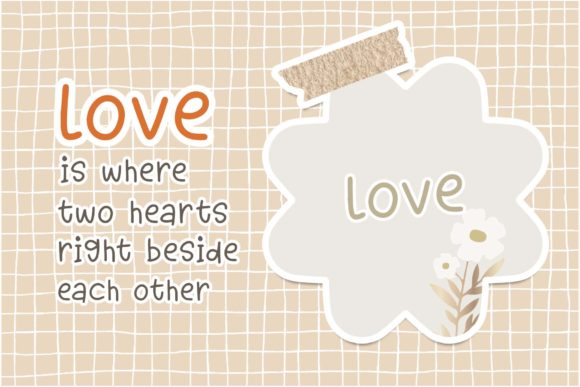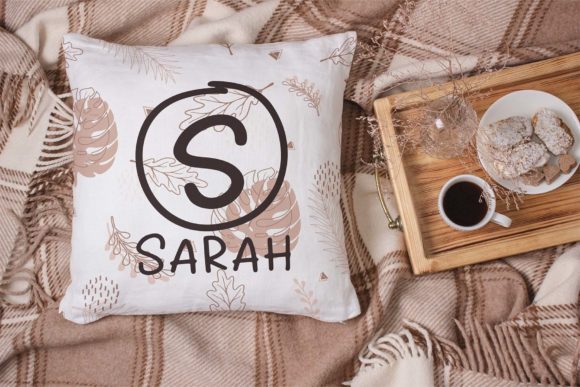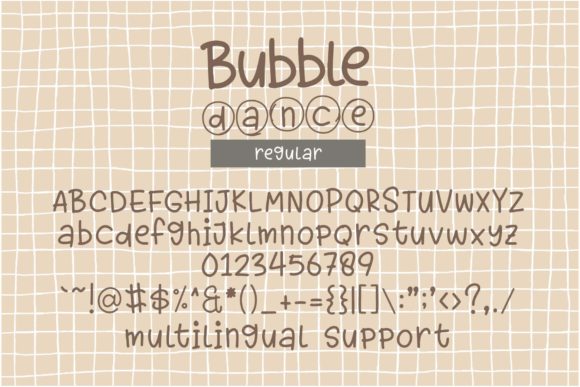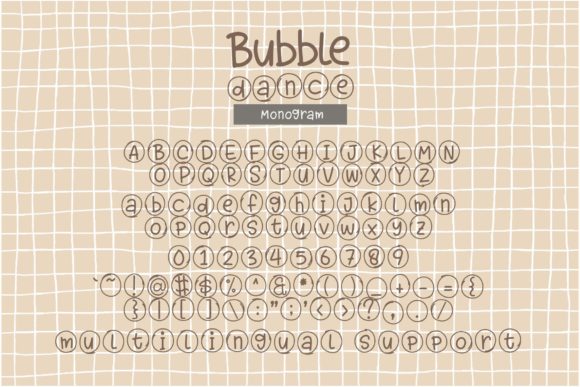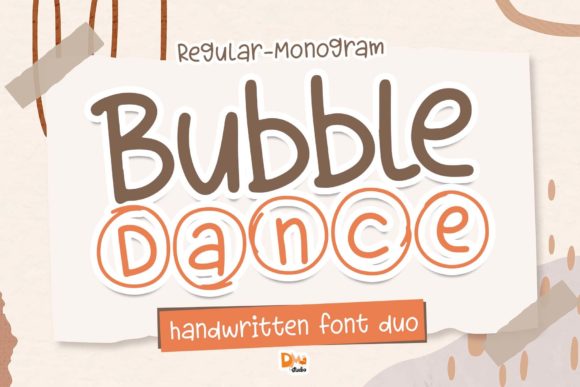
Bubble Dance Font: Elevate Your Designs with a Playful and Decorative Duo
Are you a designer, crafter, or DIY enthusiast looking for a unique and eye-catching font to add a personal touch to your projects? Look no further than the Bubble Dance Font, a handwritten and decorative duo font that’s perfect for creating stunning monograms, crafts, and designs. In this article, we’ll dive into the world of Bubble Dance Font, exploring its features, benefits, and uses, as well as provide tips and inspiration for incorporating it into your creative projects.
What is Bubble Dance Font?
Bubble Dance Font is a carefully crafted, handwritten duo font that exudes playfulness and charm. Its distinctive, bubbly style makes it an excellent choice for designers and crafters seeking to add a touch of whimsy to their work. Whether you’re creating monograms, greeting cards, posters, or other visual projects, Bubble Dance Font is sure to make your designs stand out.
Key Features of Bubble Dance Font
- Handwritten and Decorative: Bubble Dance Font boasts a beautiful, handwritten aesthetic with decorative elements that add an extra layer of visual interest.
- Duo Font: This font comes in two styles, allowing you to mix and match to create unique and eye-catching combinations.
- Perfect for Monograms: The Bubble Dance Font is ideal for creating stunning monograms that make for thoughtful gifts or personal touches.
- Crafting Friendly: This font is well-suited for various crafting projects, such as card making, scrapbooking, and DIY decor.
Benefits of Using Bubble Dance Font
So, why choose Bubble Dance Font for your projects? Here are just a few benefits:
- Unique and Playful: Bubble Dance Font adds a dash of personality to your designs, setting them apart from more traditional fonts.
- Easily Readable: Despite its decorative nature, this font remains highly legible, making it suitable for both titles and body text.
- Versatile: Bubble Dance Font can be used across a wide range of projects, from digital designs to handmade crafts.
- Time-Saving: With Bubble Dance Font, you can create professional-looking designs quickly and easily, without requiring extensive design experience.
Using Bubble Dance Font in Your Designs
Ready to get started with Bubble Dance Font? Here are some ideas to inspire your creativity:
- Monograms: Create personalized monograms for gifts, decor, or as a special touch for events like weddings and baby showers.
- Greeting Cards: Add a playful, handcrafted feel to your greeting cards with Bubble Dance Font.
- Posters and Flyers: Use this font to create eye-catching posters and flyers for events, promotions, or announcements.
- Crafts: Incorporate Bubble Dance Font into your crafting projects, such as scrapbooking, card making, or DIY decor.
Tips for Working with Bubble Dance Font
To get the most out of Bubble Dance Font, keep the following tips in mind:
- Experiment with Pairings: Try combining Bubble Dance Font with other fonts or design elements to create unique and visually appealing combinations.
- Adjust Size and Color: Don’t be afraid to experiment with different sizes and colors to find the perfect fit for your project.
Bubble Dance Font is a versatile and charming duo font that’s perfect for designers, crafters, and DIY enthusiasts looking to add a touch of whimsy to their projects. With its handwritten and decorative style, this font is ideal for creating stunning monograms, crafts, and designs that stand out from the crowd. By incorporating Bubble Dance Font into your creative workflow, you’ll be able to elevate your designs and create unique, eye-catching projects that showcase your personality and style.